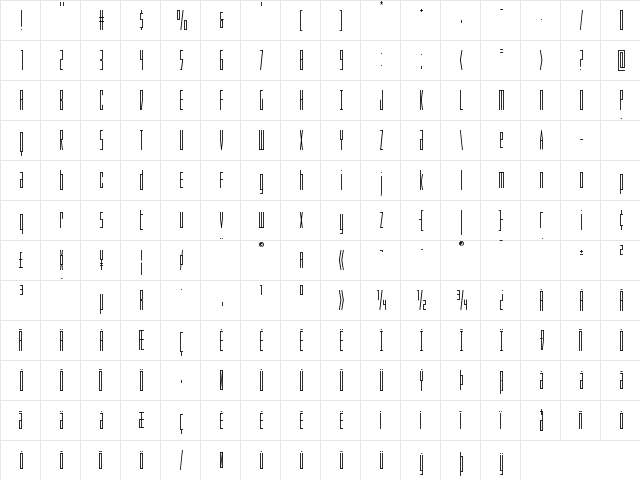
Phantacon Regular
Design Context for Phantacon Typeface
Phantacon is a composed and adaptable typeface that performs quietly and consistently across a wide range of design contexts.
Pro Tip: Use Phantacon in both headline and body roles to test its range before committing to a single application.